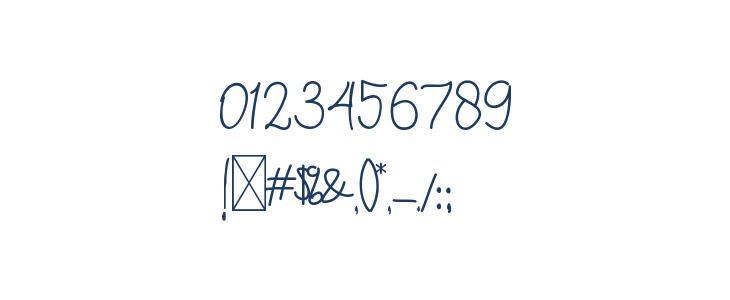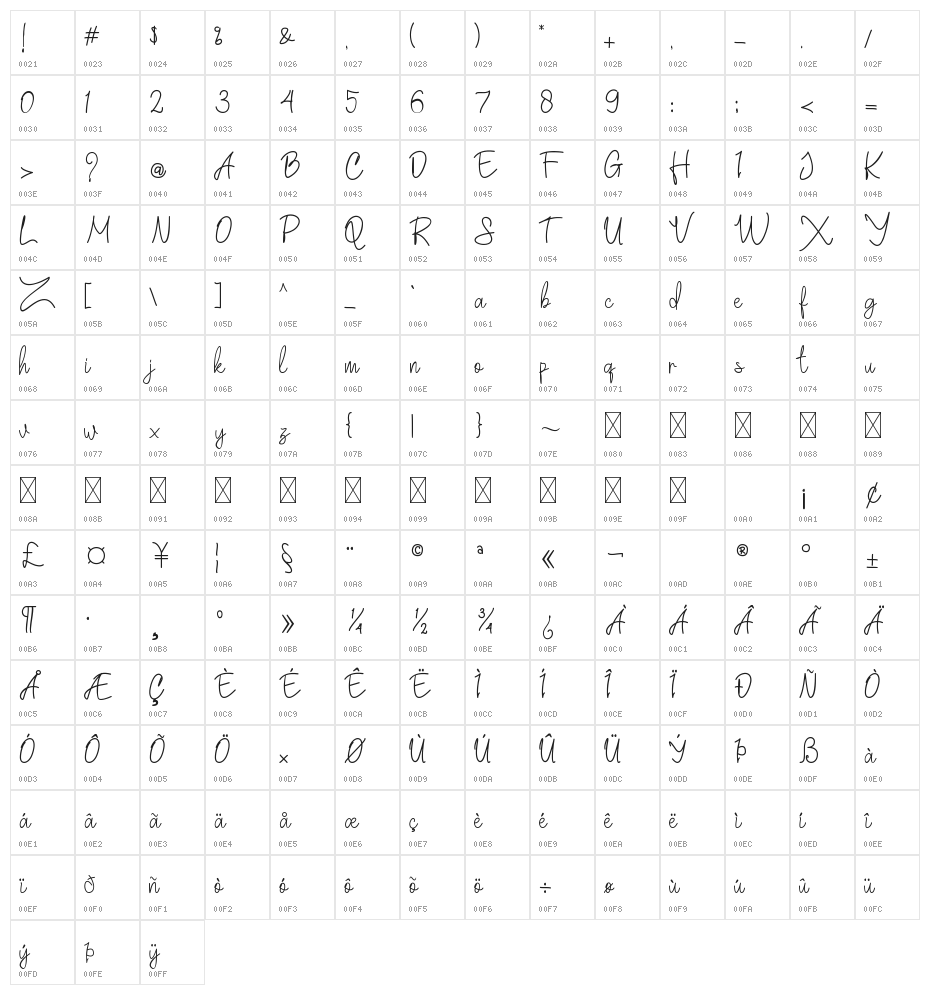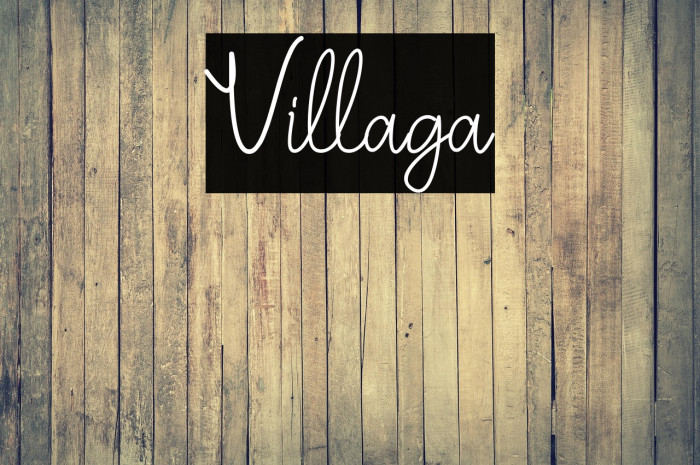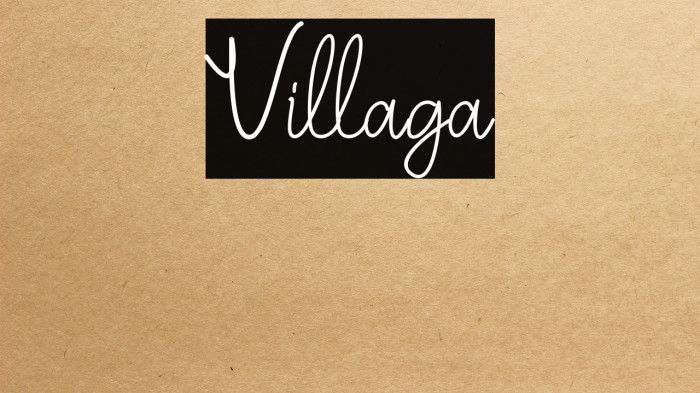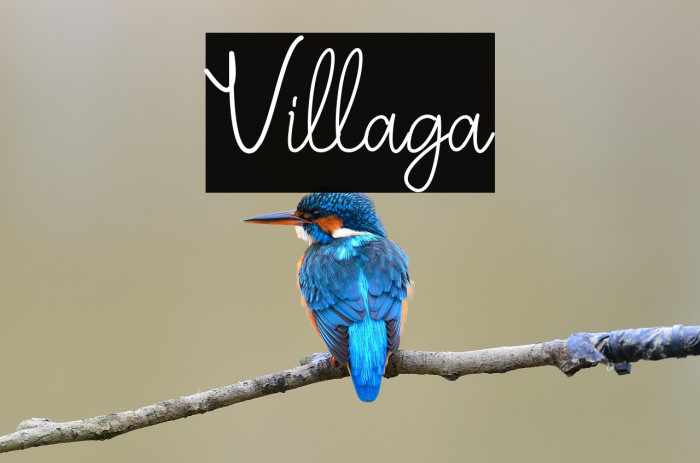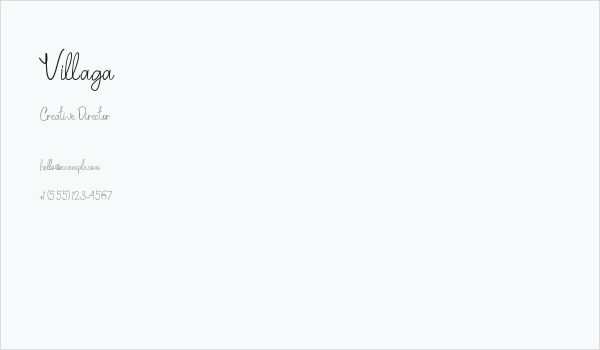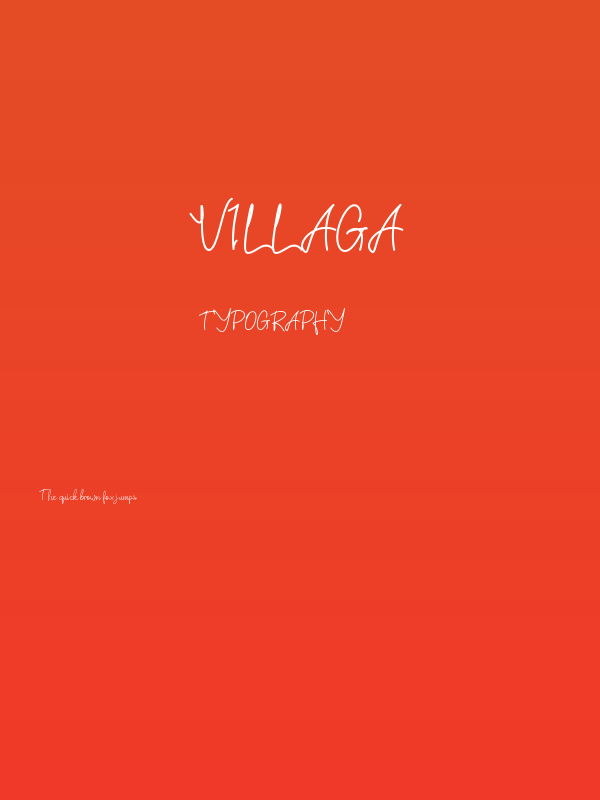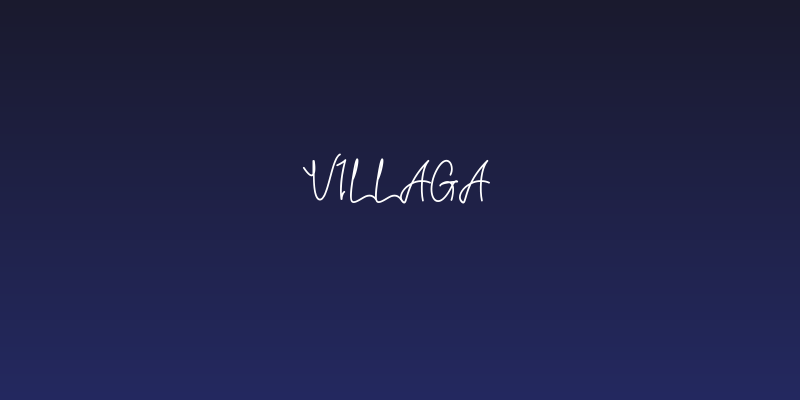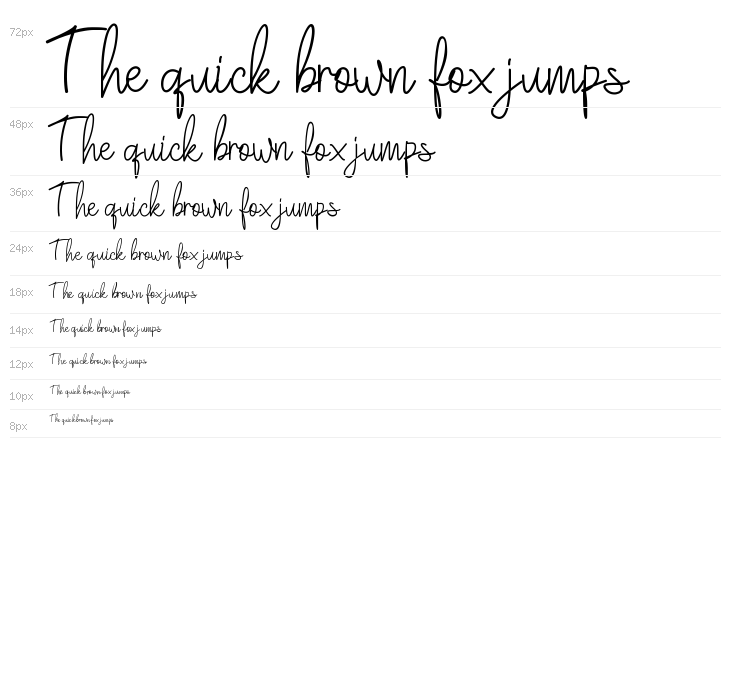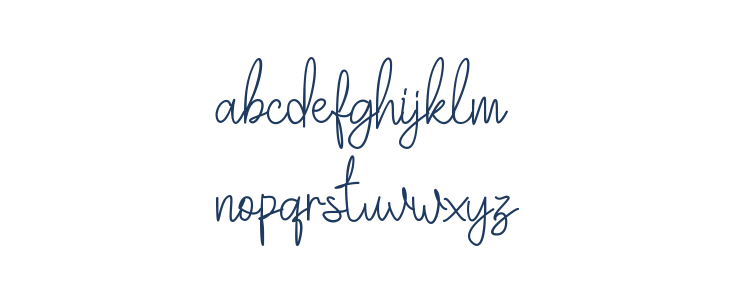
Villaga Font
Villaga Description
This font features a playful and elegant handwritten style, characterized by its flowing, cursive letters that mimic natural handwriting. The uppercase letters are bold and slightly slanted, giving a sense of movement and fluidity. The lowercase letters maintain a consistent style, with smooth curves and loops that enhance readability. Numbers and special characters are designed to match the overall aesthetic, with a whimsical touch that adds personality. The font's organic feel makes it suitable for projects that require a personal or artistic touch.
| Proposed Projects | Ideal for wedding invitations, greeting cards, personal branding, and artistic projects. |